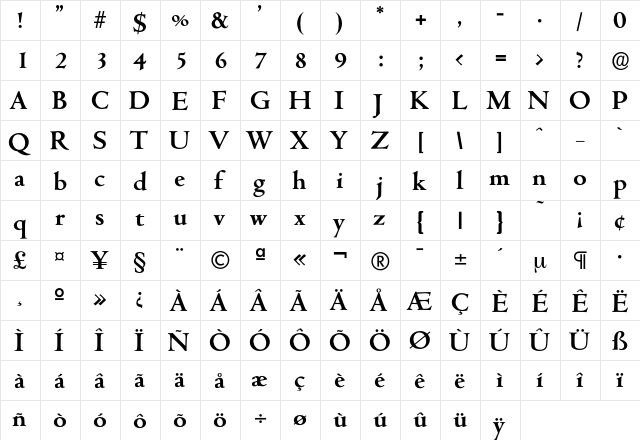
Cambridge-DemiBold Regular
Design Context for Cambridge-DemiBold Typeface
Cambridge-DemiBold is a composed and adaptable typeface that performs quietly and consistently across a wide range of design contexts. The heavy weight commands attention and anchors typographic hierarchies.
Pro Tip: Use Cambridge-DemiBold in both headline and body roles to test its range before committing to a single application.